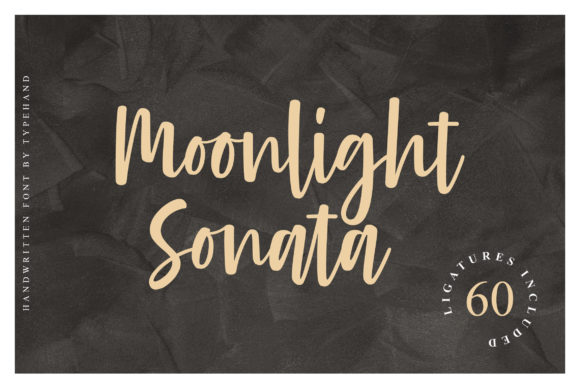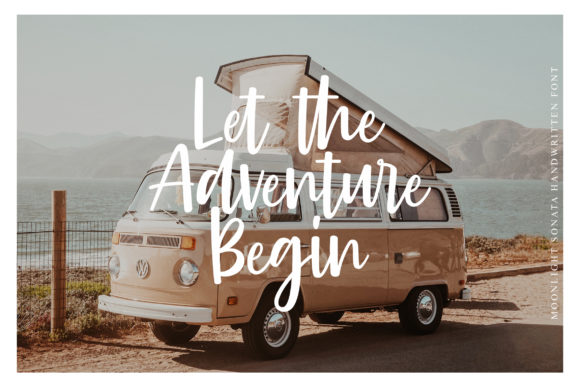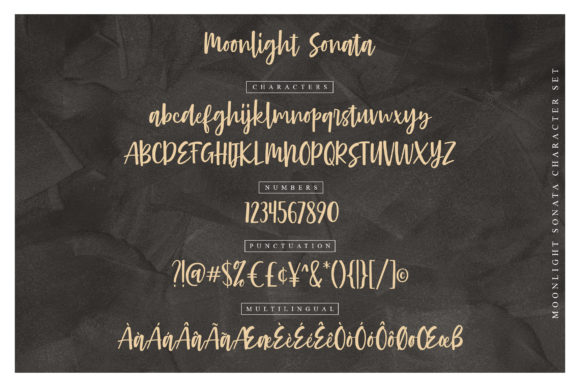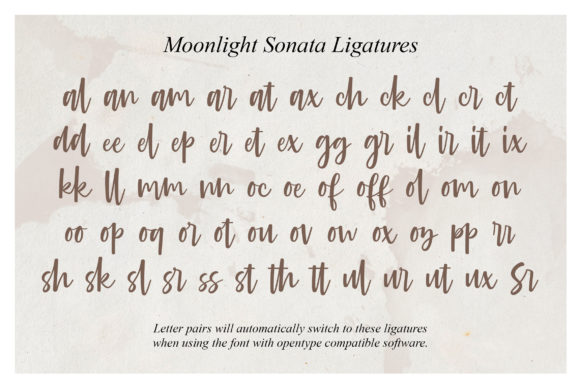
Moonlight Sonata Font
About Moonlight Sonata Font
Moonlight Sonata is a classic and timeless handwritten font. Use it to add an authentic vibe to any design project!